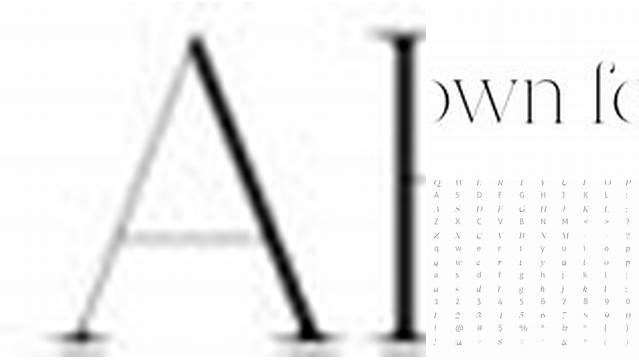
Free Apparel Display Light Fonts: Downloads & Tips
Hey guys! Are you on the hunt for the perfect font to elevate your apparel display? Look no further! Apparel display light fonts are crucial for creating visually appealing and readable designs, whether you're working on signage, promotional materials, or digital displays. A well-chosen font can significantly impact how customers perceive your brand and products. In this comprehensive guide, we'll dive into the world of apparel display light fonts, explore where to find them for free, and give you tips on how to use them effectively. So, buckle up and let's get started!
What are Apparel Display Light Fonts?
Let's break down what we mean by apparel display light fonts. These fonts are specifically designed to be used in contexts where clothing or fashion items are being showcased. The "light" aspect refers to the font's weight – typically thinner strokes that offer a more delicate and elegant appearance. These fonts are ideal for creating a sophisticated and modern look, perfect for attracting attention without overwhelming the visual space. Think of brands like Zara or H&M; their minimalist aesthetic often relies on clean, light fonts to convey a sense of style and class. When selecting a font for your apparel display, consider the overall brand identity you want to project. A light font can communicate sophistication, minimalism, and modernity. It’s all about creating a visual language that speaks to your target audience and complements your brand's ethos. For instance, a high-end boutique might prefer a sleek, sans-serif light font, while a vintage store could opt for a slightly more stylized, yet still legible, light serif font. The key is to ensure the font enhances the apparel on display, making it more appealing and easier for customers to engage with your brand. Always test your font choices in various display settings to see how they perform under different lighting conditions and viewing angles. Effective use of apparel display light fonts involves considering not only the font itself but also its context within the overall design.
Why Use Light Fonts for Apparel Displays?
There are several reasons why light fonts are a fantastic choice for apparel displays. First and foremost, they offer enhanced readability. Light fonts, when used correctly, can appear cleaner and less cluttered than heavier fonts, making it easier for customers to read important information such as prices, sizes, and promotional details. This is especially crucial in retail environments where customers often make quick decisions based on the information available at a glance. Moreover, light fonts contribute to a more modern and sophisticated aesthetic. In the fashion industry, visual appeal is everything. A light font can elevate the overall look of your display, conveying a sense of elegance and style. This is particularly important for brands that aim to position themselves as high-end or contemporary. Think of luxury brands like Chanel or Dior; they often use light, minimalist fonts to create a refined and exclusive feel. Another advantage of using light fonts is their versatility. They can be easily paired with bolder fonts to create a visually balanced and dynamic display. For example, you might use a light font for the main body of text and a heavier font for the headline to draw attention to key messages. This contrast can make your display more engaging and effective. Additionally, light fonts work well in a variety of settings, from physical storefronts to online advertising. Their clean and simple design ensures they remain legible across different mediums and platforms. Whether you're designing a window display, a social media ad, or a website banner, a light font can help you achieve a consistent and professional look. In summary, apparel display light fonts offer a winning combination of readability, aesthetic appeal, and versatility, making them an essential tool for any fashion retailer looking to enhance their brand image and attract more customers.
Where to Find Free Apparel Display Light Fonts
Top Free Light Fonts for Apparel Displays
Alright, let's dive into some specific free light fonts that are perfect for apparel displays. Knowing which fonts to look for can save you a ton of time and effort. Here are some of our top recommendations: Lato: Lato is a sans-serif font that is known for its clean and modern design. It's highly legible and works well in a variety of settings, making it a versatile choice for apparel displays. Lato is available in several weights, but the light and hairline versions are particularly well-suited for creating a sophisticated look. Open Sans: Open Sans is another excellent sans-serif font that is widely used for its readability and simplicity. It's a great option for body text and smaller details on your apparel displays. The light version of Open Sans is clean and unobtrusive, allowing your apparel to take center stage. Montserrat: Montserrat is a geometric sans-serif font that has a modern and stylish feel. It's a great choice for headlines and titles on your apparel displays. The light version of Montserrat is elegant and eye-catching, helping to draw attention to your key messages. Raleway: Raleway is a sleek sans-serif font that is available in a variety of weights, including a very light version. It's a great option for creating a minimalist and contemporary look. Raleway works well for both headlines and body text, making it a versatile choice for your apparel displays. Roboto: Roboto is a modern sans-serif font that is designed for readability on screens. It's a great choice for digital displays and online advertising. The light version of Roboto is clean and clear, ensuring that your message is easily understood. Playfair Display: If you're looking for a serif font, Playfair Display is an excellent choice. It's a high-contrast font that is perfect for headlines and titles on your apparel displays. The regular and light versions of Playfair Display exude elegance and sophistication, making them ideal for creating a high-end look. These fonts are all available for free download and use, making them a cost-effective way to enhance your apparel displays. Experiment with different fonts to see which ones work best for your brand and your specific design needs. Remember to consider the overall aesthetic you want to achieve and choose fonts that complement your apparel and your brand identity.
How to Use Light Fonts Effectively
So, you've found some awesome light fonts – great! But knowing how to use them effectively is just as important. Here are some tips to help you make the most of light fonts in your apparel displays: Contrast is Key: Light fonts often work best when paired with darker backgrounds. This contrast helps to improve readability and makes the text stand out. Experiment with different color combinations to find what works best for your specific font and design. Use Font Pairing: Don't be afraid to mix and match fonts. Pairing a light font with a bolder font can create a visually balanced and dynamic display. For example, you might use a light font for the body text and a heavier font for the headlines. Pay Attention to Kerning and Leading: Kerning (the space between individual letters) and leading (the space between lines of text) can have a big impact on the readability of your light fonts. Make sure to adjust these settings to ensure that your text is easy to read and visually appealing. Consider the Overall Design: Your font choice should complement the overall design of your apparel display. Think about the colors, images, and other design elements you're using and choose fonts that work well with them. Test Your Fonts: Always test your fonts in different sizes and settings to see how they look. What looks great on your computer screen might not look as good in a physical display. Print out samples and view them from different distances to ensure that your fonts are legible and visually appealing. Use Hierarchy: Use different font sizes and weights to create a visual hierarchy on your apparel display. This will help to guide the viewer's eye and make it easier for them to understand the key messages. Don't Overdo It: While it can be tempting to use a lot of different fonts on your apparel display, it's generally best to stick to a maximum of two or three fonts. Too many fonts can make your display look cluttered and confusing. By following these tips, you can use light fonts effectively to create visually appealing and engaging apparel displays that attract customers and enhance your brand image. Remember to experiment and have fun with your designs, and don't be afraid to try new things.
In conclusion, apparel display light fonts are a powerful tool for enhancing your brand image and attracting customers. By choosing the right fonts and using them effectively, you can create visually appealing and engaging displays that showcase your apparel in the best possible light. Remember to explore the free font resources we've discussed, experiment with different font pairings, and always test your designs to ensure they look great in a variety of settings. With a little creativity and attention to detail, you can create apparel displays that are both stylish and effective. So go ahead, download some free light fonts and start designing your next eye-catching display today! You've got this!